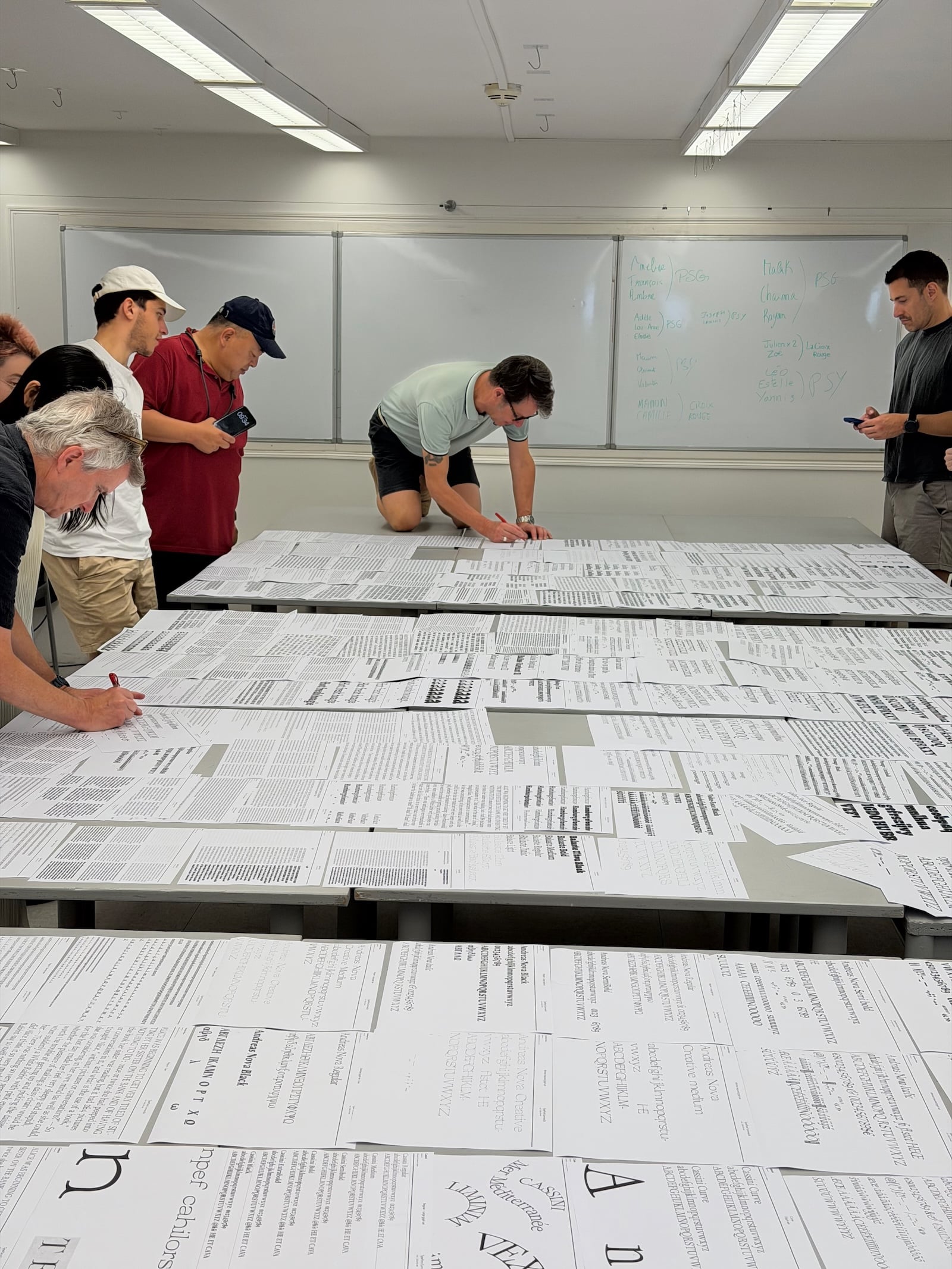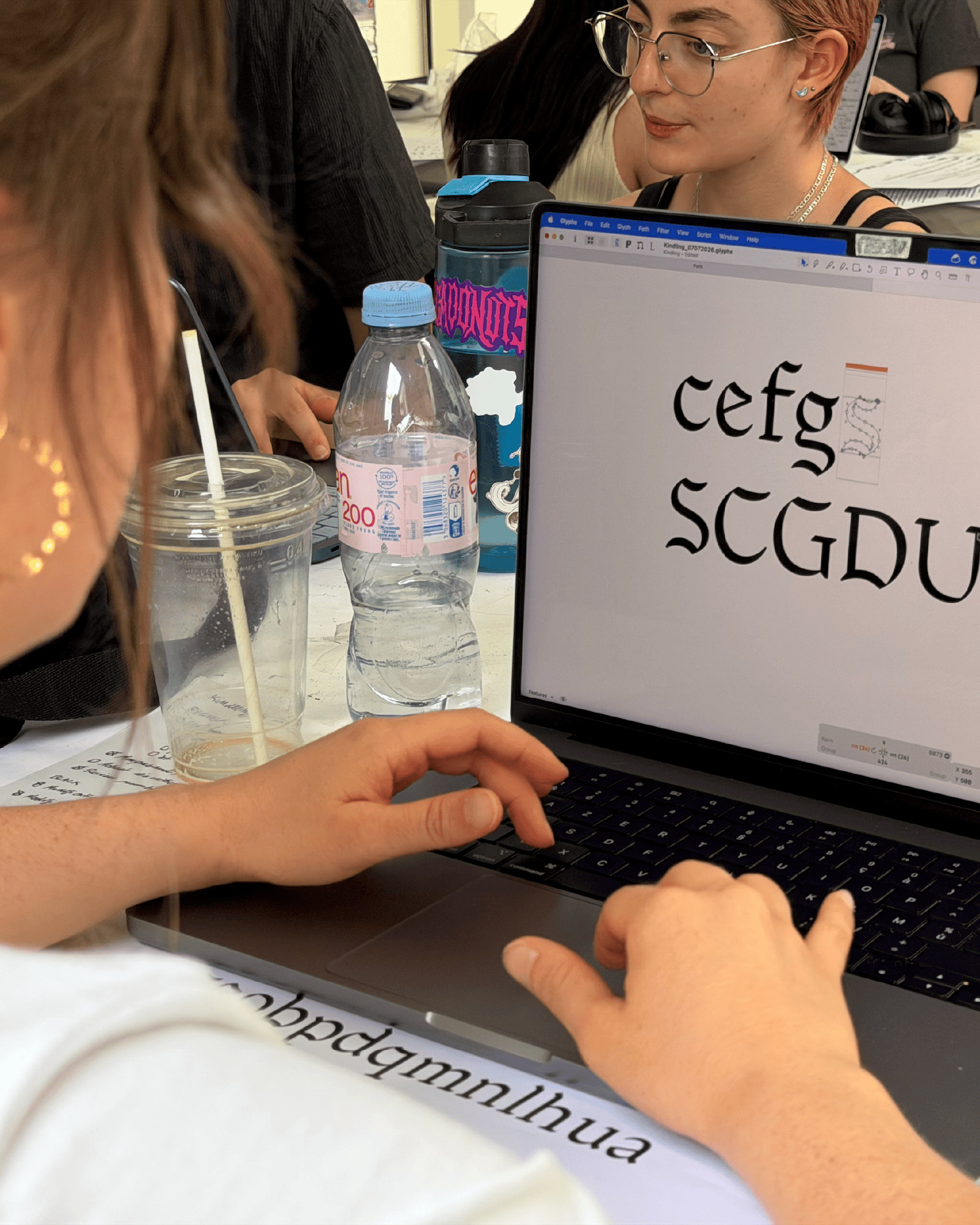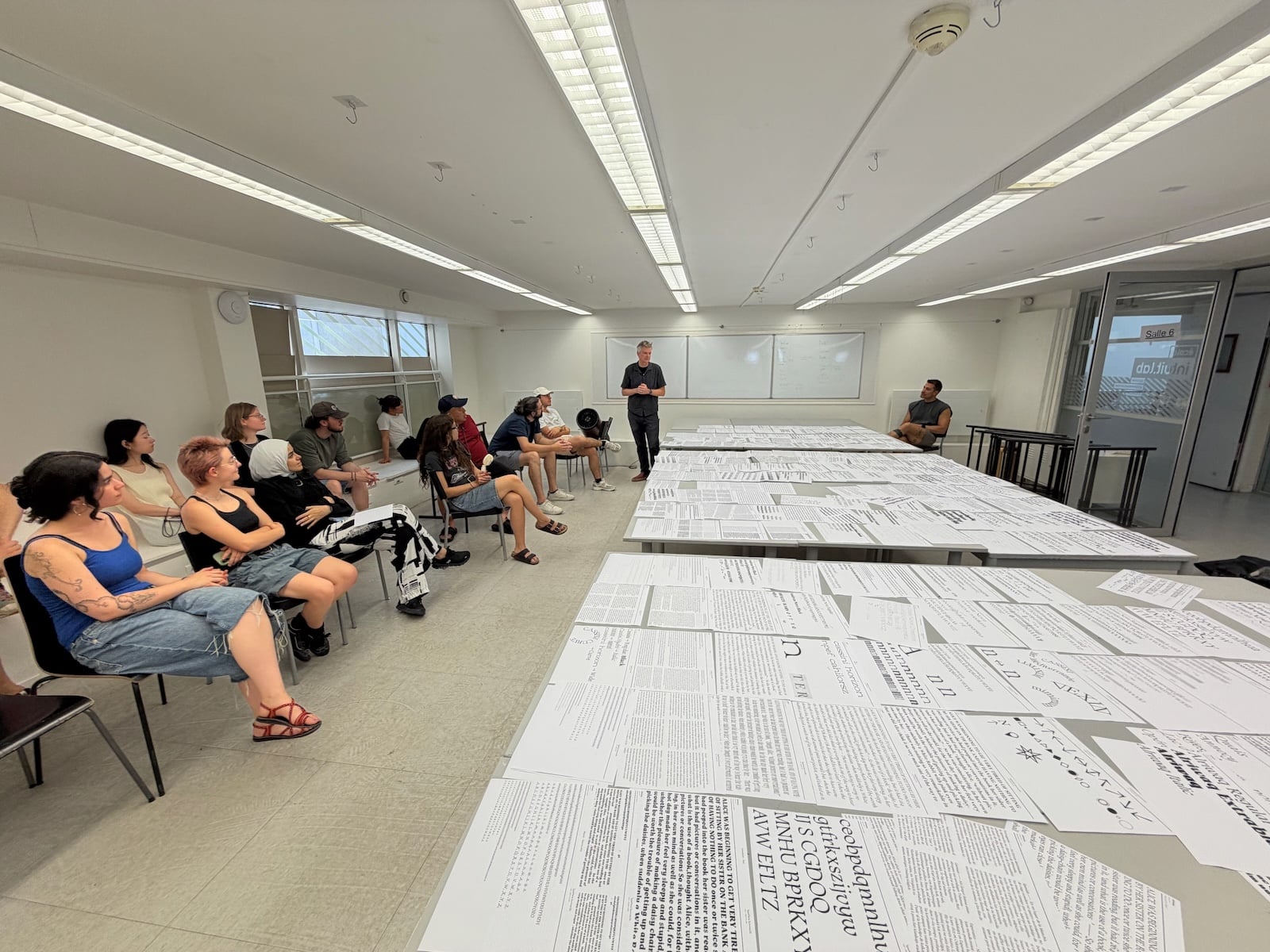
Six weeks have flown by, and TypeParis Summer26 is finally over! The closing phase of the programme focussed on finalising global reviews, polishing, and completing all typeface families. It also involved designing specimens and preparing final presentations for these projects. Of course, as is tradition, the programme concluded with a well-deserved farewell party.
The last phase is a special moment because the typeface families become functional entities. Participants gained in speed and precision, and know-how. As a result, the first meeting of the last phase was magical. We discovered the breadth of the projects. Instructors have been incredibly impressed by the fulfilment of designing typefaces in such a short time. Just six weeks ago, many participants had not practised calligraphy, or even opened font design software like Glyphs.
An incredible quantity of variants of weights, widths, and italics were presented. This year, not only did everyone have italics, but very beautiful compressed and extended widths appeared.
Final stages
The following days were dedicated to the last details, including spacing optimisations, additions of glyph variants, swashes and all these add-ons that make the difference. The to-dos list included:
- Type families delivered including source files, functional fonts.
- Type setting according to the official template that allows all typefaces to be compared in a rigorous way.
- Design of the type specimen that will be printed and distributed on the last day.
- Writing the text presentation of the type project.
- Design of the presentation that will be broadcast on Friday 10 July 2026, of which extracts are presented on each page of the typefaces in the attendee section.
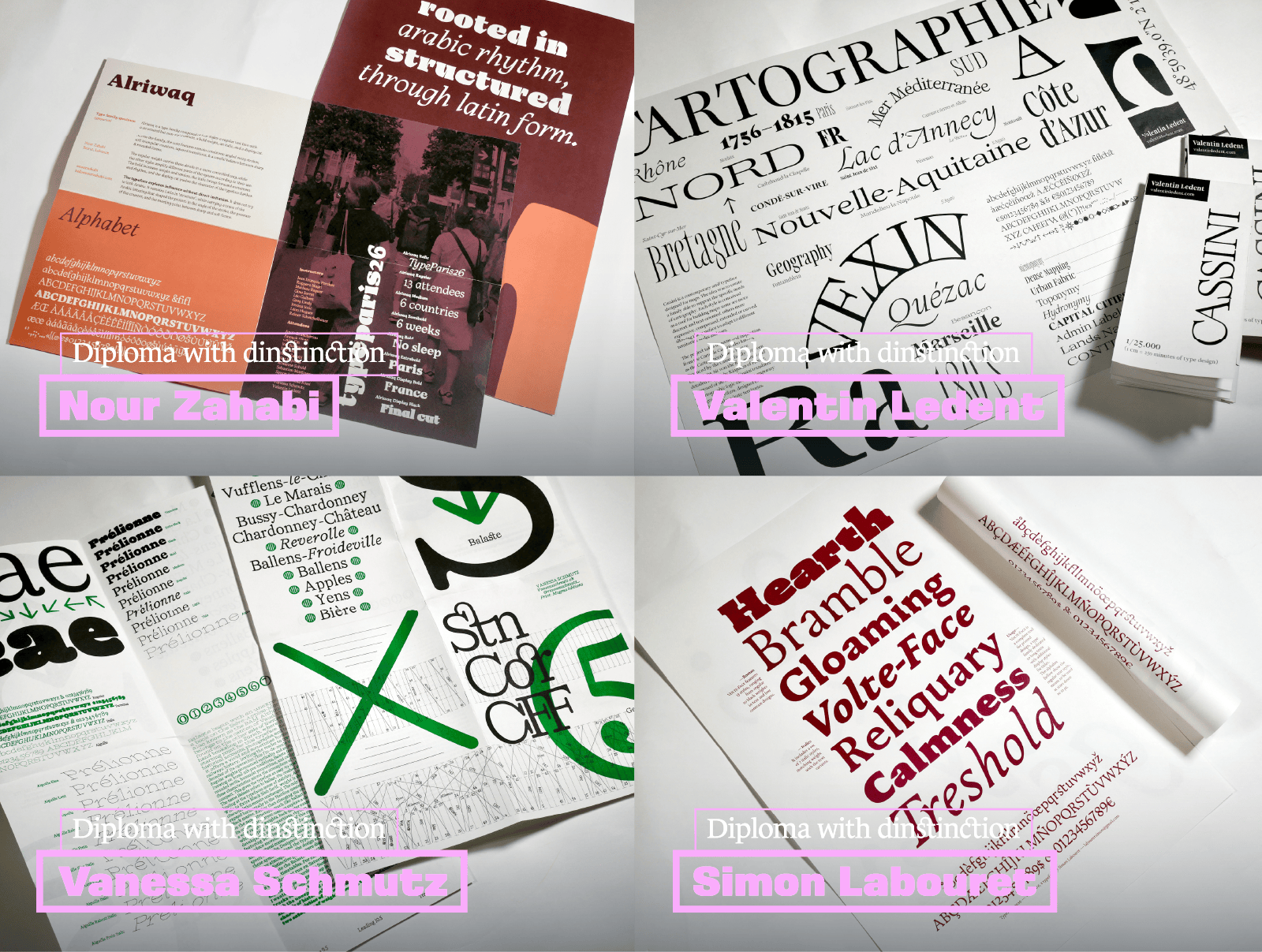
Thirteen typefaces
The thirteen TypeParis Summer26 type families are now published on our website. You will be able to understand the process for each type project, visualise each font family, and also see the printed specimens designed by the participants. As we have been doing for years, at the end of the final presentation, instructors meet with a guest type designer to honour together specific projects. This year, our guest was Jérémie Hornus, founder of U+ Type, then previously of Black Foundry.
Congratulations to TypeParis Summer26 attendees!
It’s time to bid farewell to the TypeParis Summer26 edition. Let’s take a moment to congratulate all the attendees on their amazing work over the past six weeks. As instructors, guest critics and organisers, we’re absolutely thrilled with the effort, as well as the individual growth of their skills, and the group’s serious and responsible attitude throughout this edition. Their work speaks volumes, and we’re so proud of them!